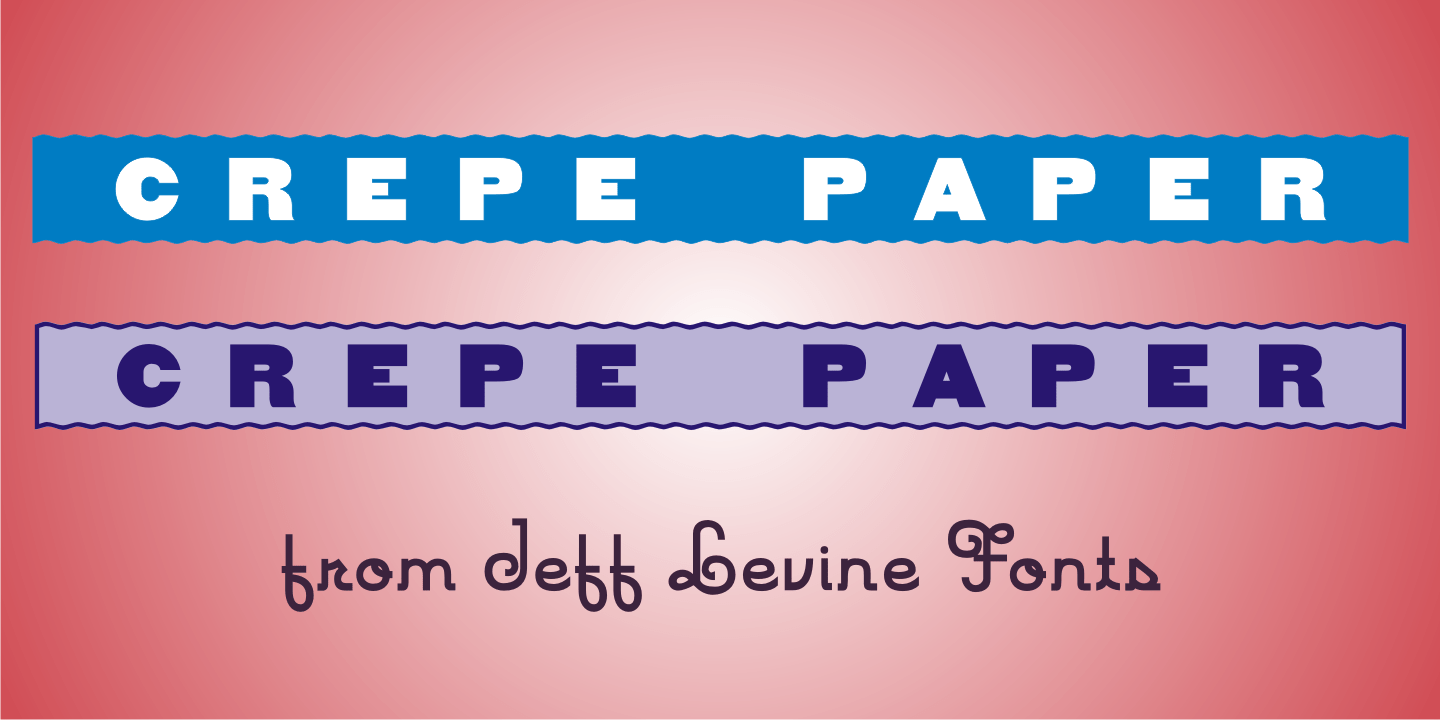
Crepe Paper
Crepe Paper JNL is an alphabet-only novelty font that creates a wavy ribbon headline with a vintage wood type alphabet that somewhat resembles an unfurled stretch of crepe paper.
The upper case A-Z keys will produce a white ribbon banner with black letters, while the lower case a-z keys are white letters on a black background.
The end caps for the white banner are on the left and right parenthesis keys, while the end caps for the black banner are on the bracket keys.
A blank space is located on the period key for the white banner and on the comma key for the black banner.
This will allow for a continuous text banner without an open break due to using the space key.